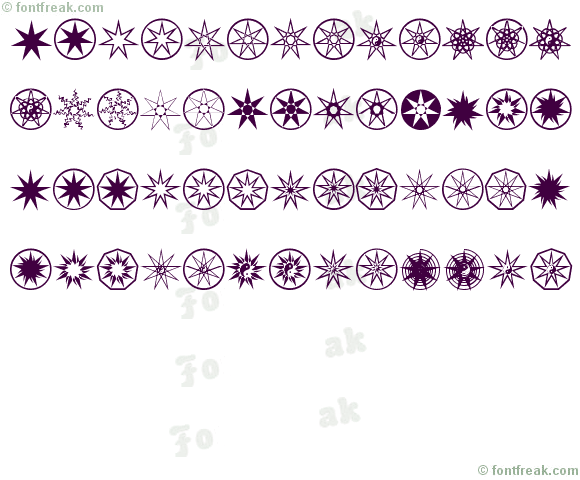
MysticStar
The MysticStar font, crafted by Joanne Kline and released as freeware, is a distinctive display typeface that captures the essence of celestial themes and mystical designs. This font showcases a unique blend of geometric shapes and star-like forms, giving it an otherworldly appeal. The stroke weight varies, enhancing the visual impact with a combination of bold and delicate elements. The spacing is thoughtfully designed, allowing for clarity and legibility while maintaining an artistic flair. Decorative elements reminiscent of stars and cosmic motifs are intricately woven throughout the typeface, making it a perfect choice for creative projects.
The MysticStar font excels in a variety of use cases. It is ideal for wedding invitations, where its enchanting qualities can evoke romance and magic. Additionally, it serves well in movie posters, particularly for fantasy or sci-fi genres, adding a dramatic touch that captivates viewers. Restaurant menus can benefit from its unique style, providing an inviting atmosphere that complements themed dining experiences. Graphic designers looking to create eye-catching branding materials will find this font particularly useful, as it stands out in logos and promotional graphics. Content creators can also leverage its charm for social media graphics and digital content.
Targeting graphic designers, small business owners, and content creators, the MysticStar font brings a whimsical yet professional touch to any project. Its versatility and distinct visual characteristics make it an excellent addition to any designer's toolkit. The MysticStar font free download offers an opportunity for creatives to explore its potential without financial barriers. This font stands out not only for its unique aesthetic but also for its ability to elevate designs, making projects memorable and captivating.